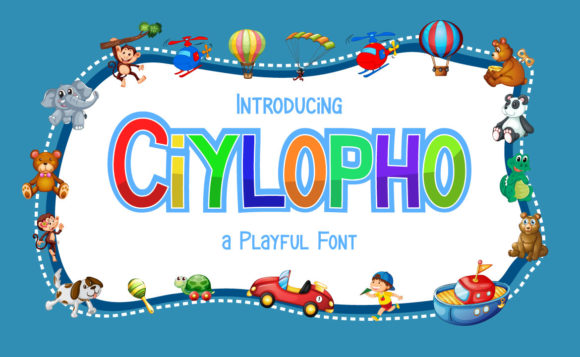
Journey into a realm of whimsy and adventure with Ciylopho, the ultimate display font designed to ignite the imagination of the young and the young at heart. Inspired by the boundless creativity of childhood, Ciylopho captivates with its bold, thick letters that dance across the page like playful brushstrokes.
Crafted with meticulous attention to detail, Ciylopho is a symphony of visual delight. Its unique letterforms evoke a sense of wonder and curiosity, making it the perfect choice for designs that aim to entertain, educate, and inspire. Whether you're creating posters, flyers, book covers, or social media graphics, Ciylopho will add an instant touch of playful sophistication to your work.
Unleash your creativity and let Ciylopho take you on a journey through a kaleidoscope of colors and emotions. Its versatility knows no bounds, lending itself effortlessly to a wide range of design projects. From enchanting children's books to captivating logos, Ciylopho possesses the remarkable ability to transform ordinary text into captivating works of art.
Step into a world where imagination reigns supreme and let Ciylopho be your guide. Its bold strokes and vibrant energy will captivate audiences of all ages, leaving them spellbound by the sheer magic of its presence. Embrace the playful spirit of Ciylopho and watch as your designs take on a life of their own, transporting viewers to a realm where dreams come alive.
With Ciylopho as your creative companion, the possibilities are endless. Its bold, thick letters will add a touch of whimsy and excitement to any project, making it the perfect choice for designers seeking to create truly memorable experiences. Embrace the magic of Ciylopho and let your imagination soar.